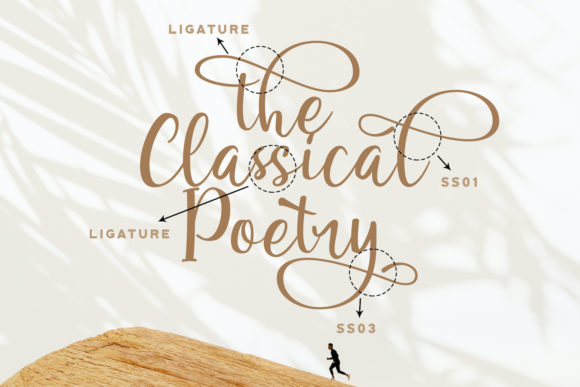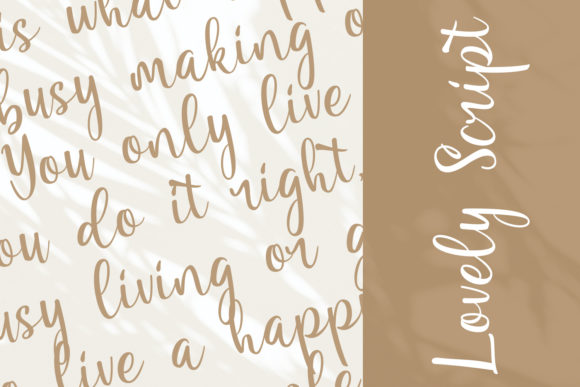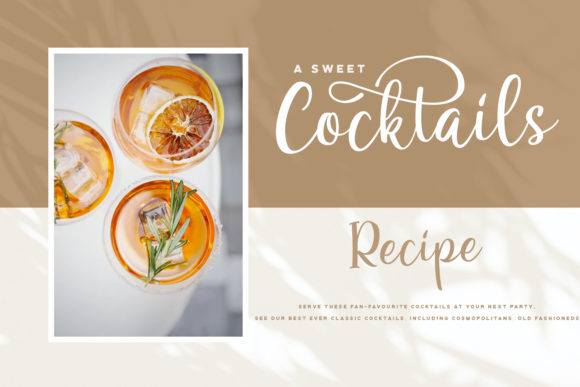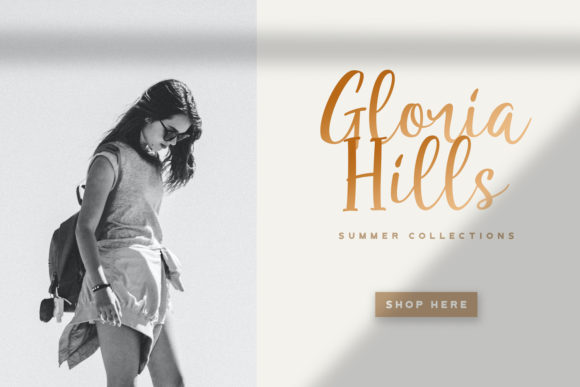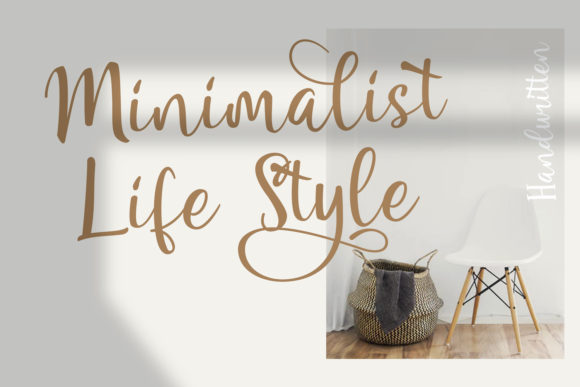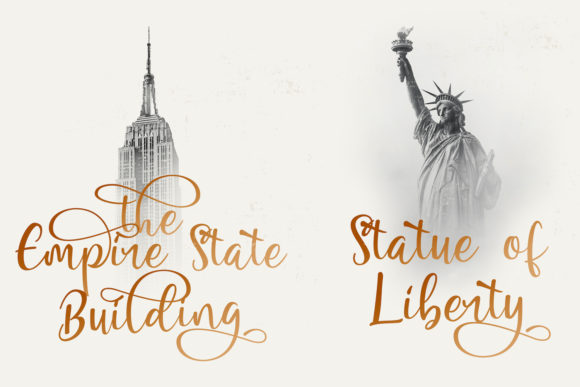
Introduction to Renitah Font
Have you ever found yourself stuck in a design rut, searching for the perfect font to elevate your creative project? Maybe you’ve spent hours scrolling through font libraries, only to end up with a bland, generic option that fails to capture the essence of your vision. I’ve been there too, and that’s why I’m excited to introduce you to the stunning Renitah Font, a game-changing design resource that’s about to revolutionize your creative workflow.
With its elegant, classic style and friendly feel, the Renitah Font is the perfect combination of high-quality design and authentic calligraphy. Its versatility makes it an ideal choice for a wide range of creative projects, from wedding invitations to blog headers, and even social media graphics. Whether you’re working on a high-end design or a simple free download, this font is sure to add a touch of sophistication and elegance to your work.
Key Features of Renitah Font
- High-quality, professional font suitable for creative projects requiring elegant and stylish text.
- Comes with a transparent background, making it easy to use on various design resources.
- Features a unique and intricate design, setting it apart from other fonts in its class.
- Designed to be versatile, suitable for use in a wide range of creative projects, from logos to typography.
Honest Review: Renitah Font
I recently had the opportunity to work with the Renitah Font, and I must say it’s been a game-changer for my creative projects. This high-quality font is perfect for designers looking to add a touch of elegance to their work.
- ✨ High-quality design: The Renitah Font boasts a beautiful, intricate design that’s sure to elevate any project.
- ✨ Transparent background: This font is ideal for designers who need to create a clean, minimalist look with a transparent background.
- ⚠️ Limited font sizes: While the font is beautiful, it’s limited to a few font sizes, which may not be suitable for all design projects.
- ⚠️ Not ideal for bold text: The font’s delicate design may not be the best choice for projects that require bold, attention-grabbing text.
Overall, I’m impressed with the Renitah Font, and I’d highly recommend it for designers looking for a high-quality, free design resource. With a little creativity, this font can help you create stunning designs that exceed your expectations.
Tips for Getting the Most Out of Renitah Font
For a high-quality design, use the Renitah Font in conjunction with a transparent background to create a stunning visual effect. This font is perfect for a creative project and is available for free download as a design resource.
Renitah Font is ideal for use in logos, branding materials, and social media graphics. Its unique design makes it perfect for creating eye-catching visuals for a variety of creative projects.